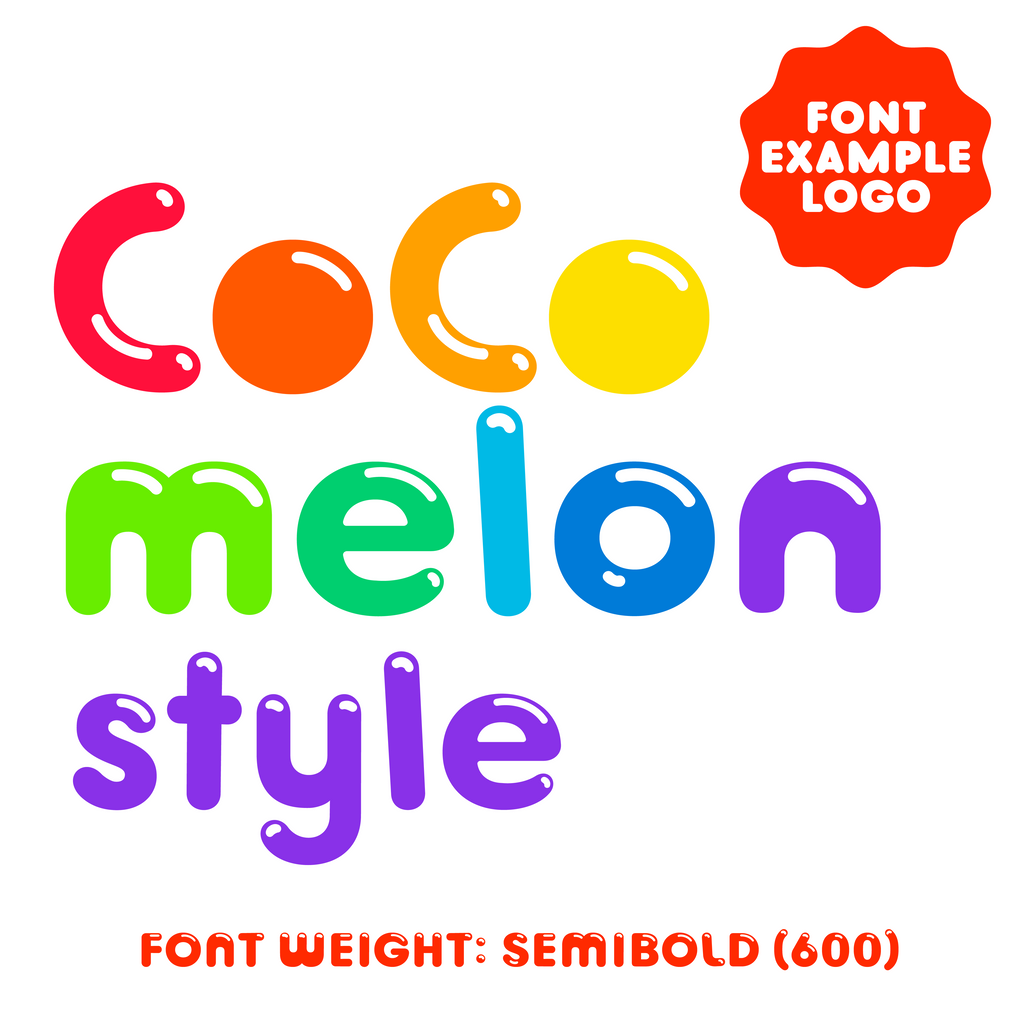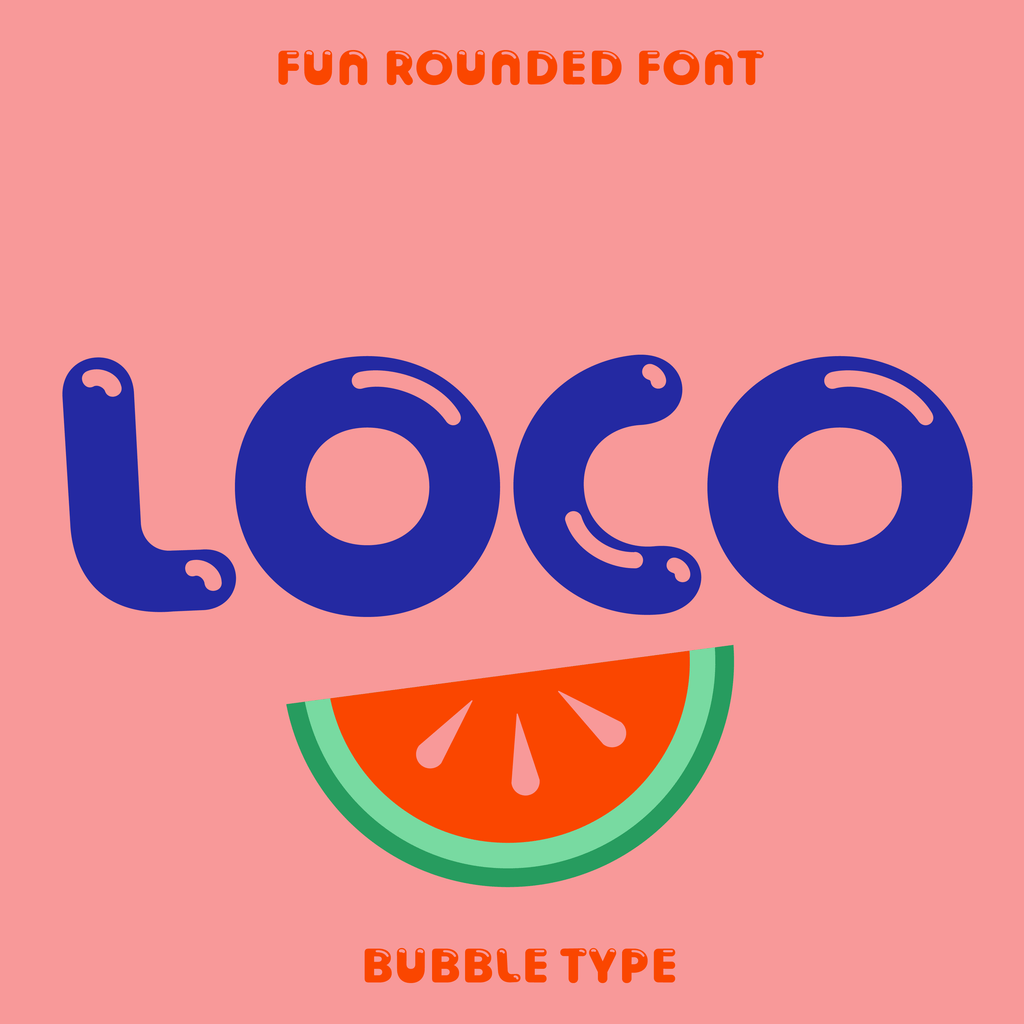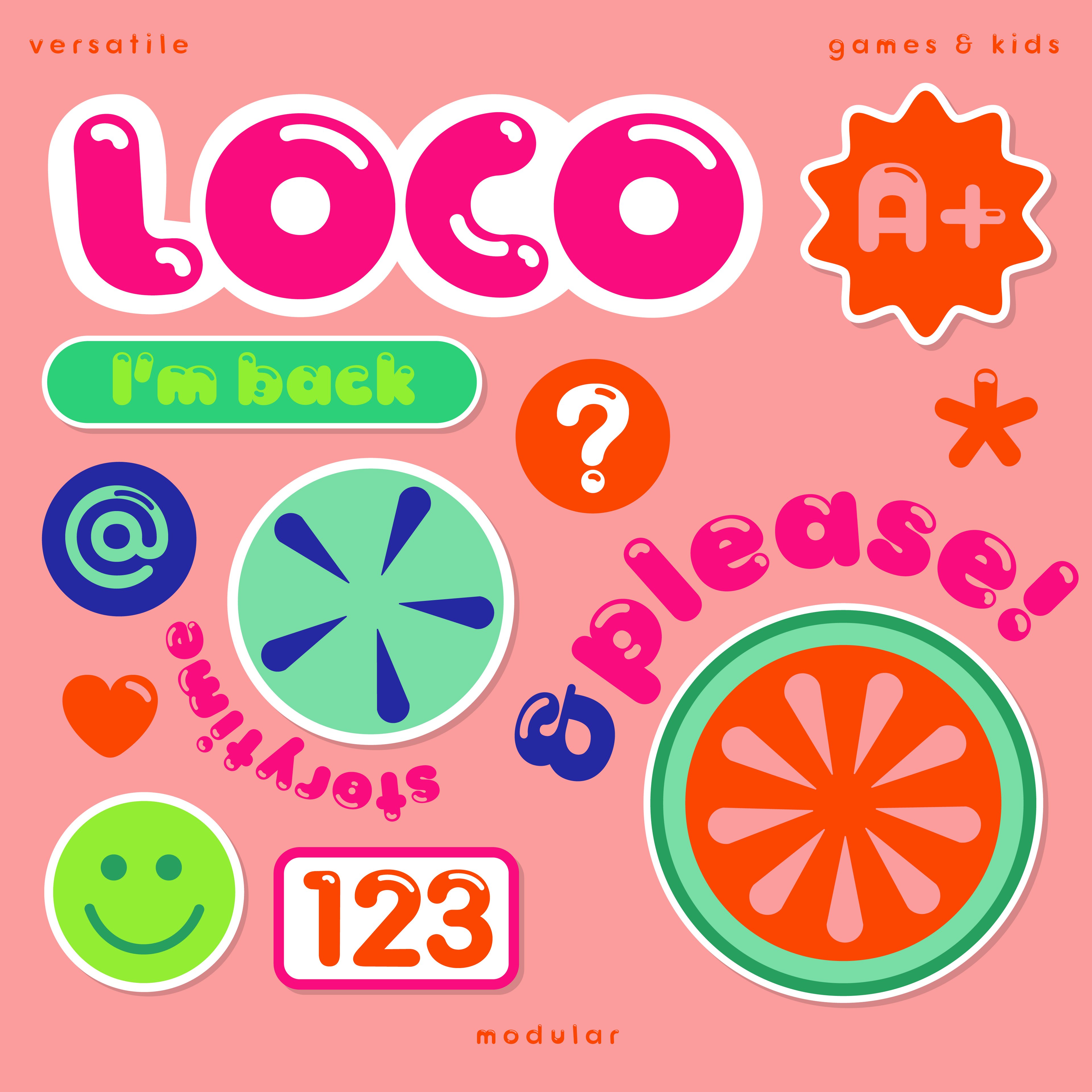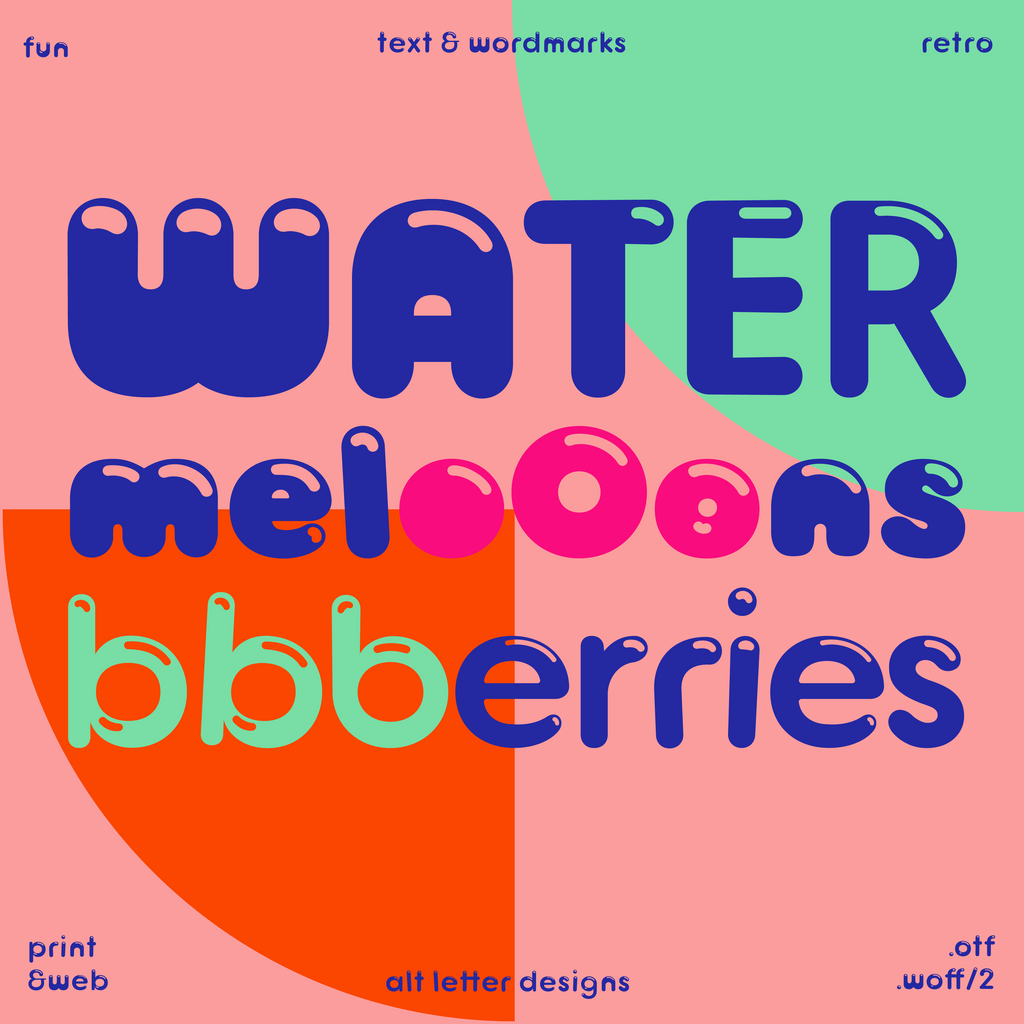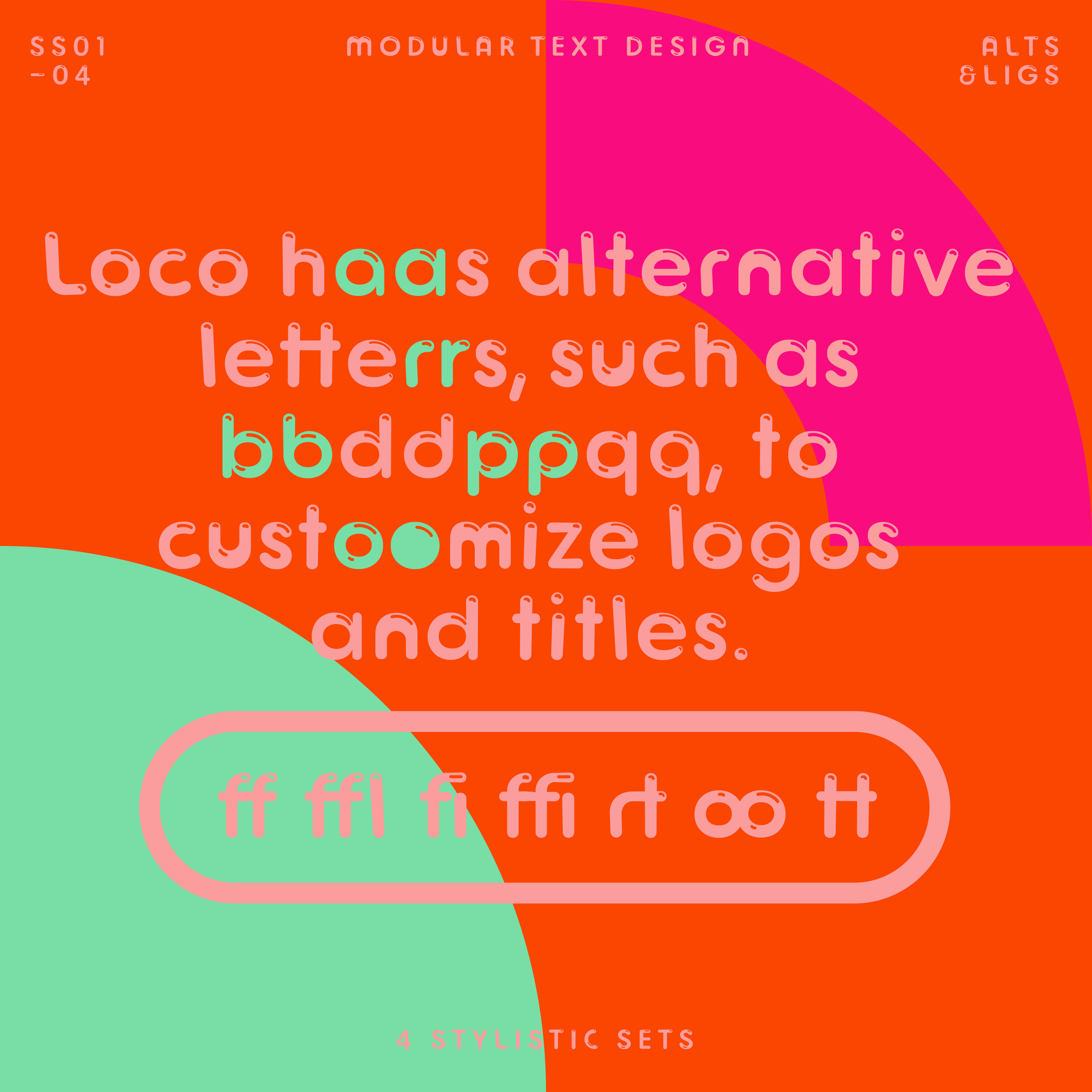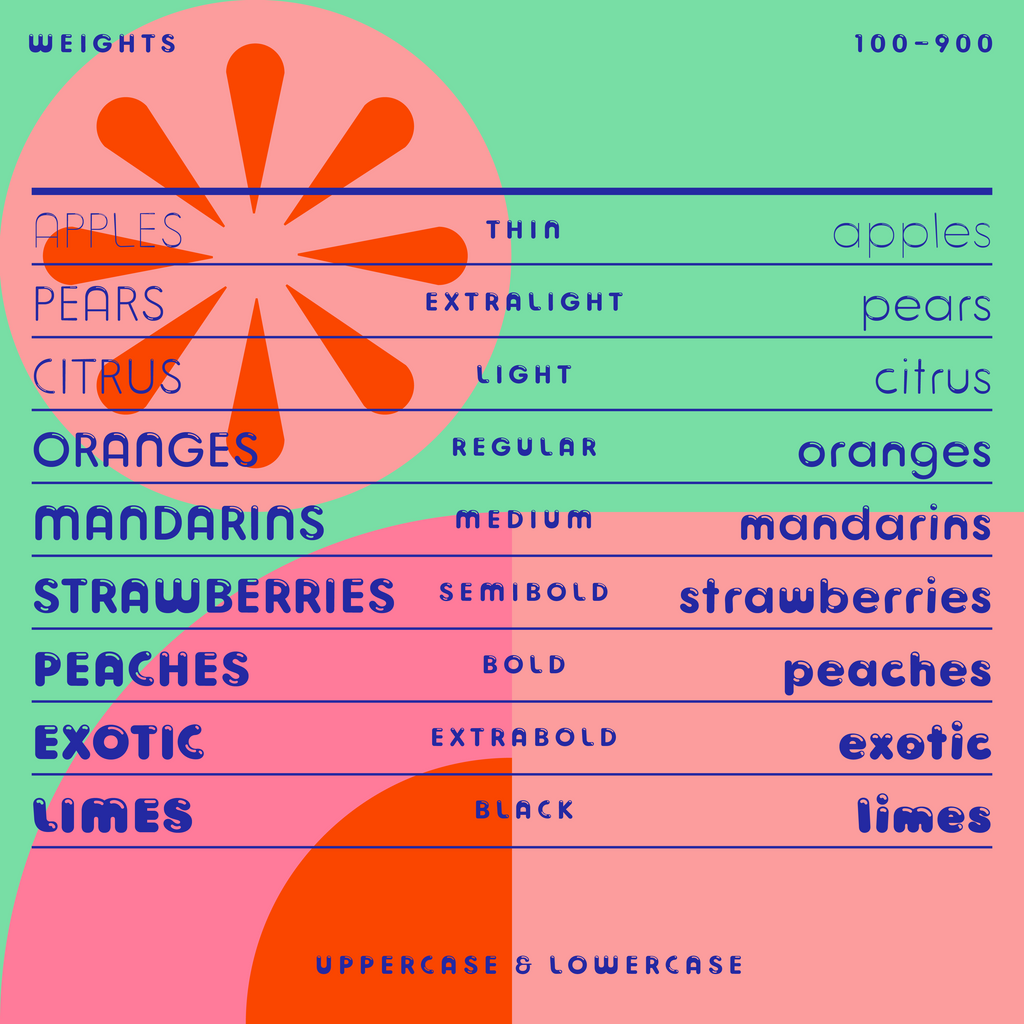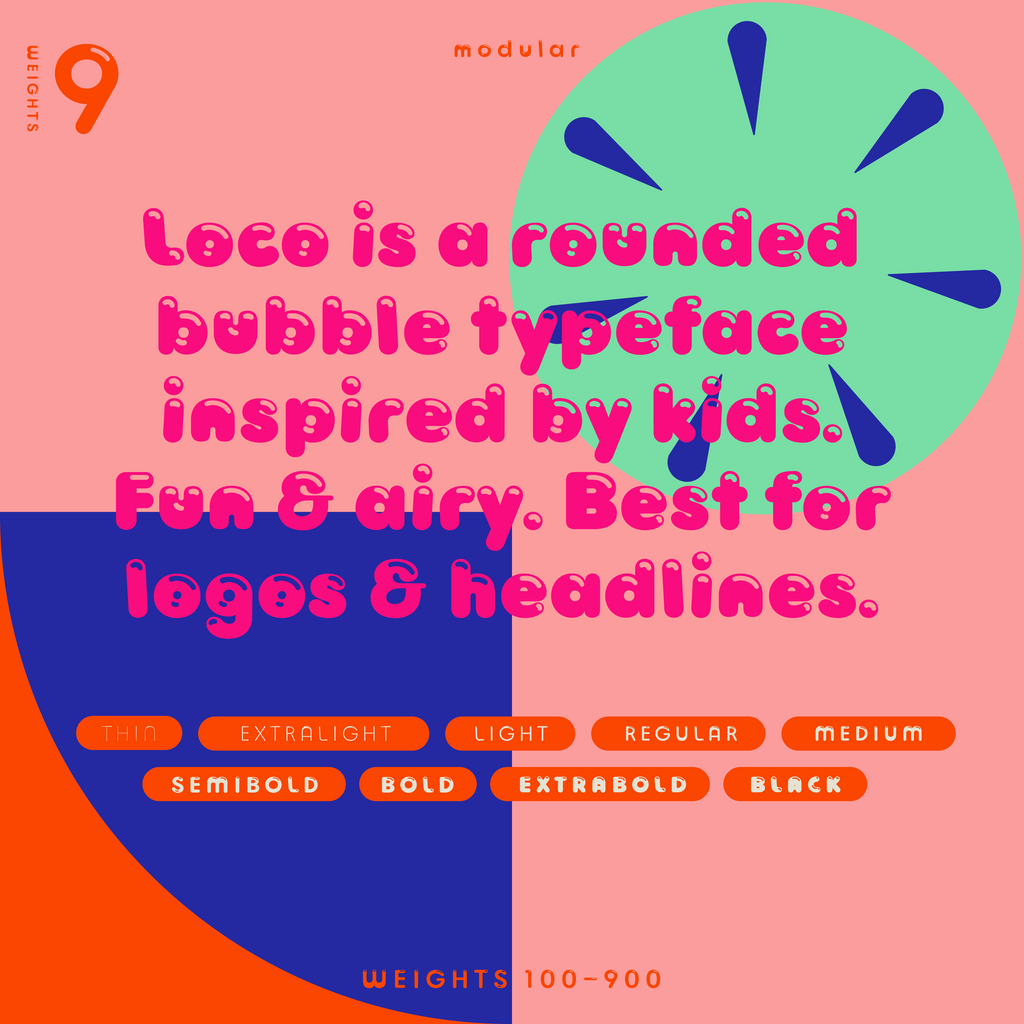
A rounded bubble font with small white highlights inside the strokes, like light on a glossy surface.
The highlights show best in the bold weights, where the letters puff up. Children’s brands, toys, party invitations and playful headlines.
Loco is a rounded bubble font for fun lettering similar to Cocomelon. The type comes with highlights for a stronger bubble effect. Loco has uppercase and lowercase letters in 9 single weights or as a font family. From very thin to very bold.
For an inky, watery feel, use a thinner weight. For an airy bubble quality, pick a bolder weight. The font also features stylistic sets with alternative letters for more fun, varied titles, and logo design.
Loco · variable, 100 to 900
A rounded bubble font with small white highlights inside the strokes, like light on a glossy surface.
The highlights show best in the bold weights, where the letters puff up. Children’s brands, toys, party invitations and playful headlines.